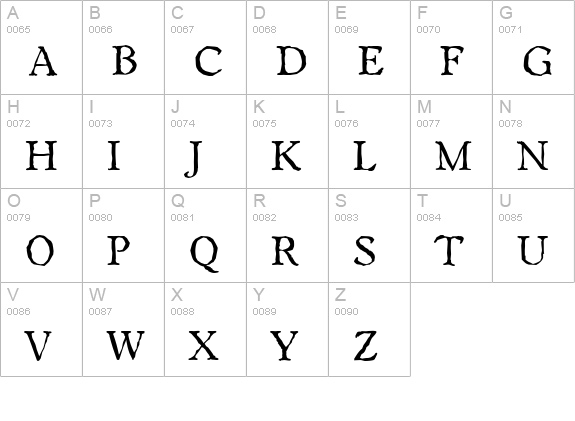
WorcesterAntique-Regular is the standard, neutral variant in the WorcesterAntique typeface family \xE2\x80\x94 well suited to general body text, paragraphs, and standard typographic work.
WorcesterAntique-Regular is a timeless and elegant font that exudes a classic charm perfect for a variety of design projects. With its vintage-inspired look and intricate details, this font captures the essence of antique typography in a modern context. The ornate serifs and delicate curves of WorcesterAntique-Regular add a touch of sophistication and refinement to any design. Best of all, WorcesterAntique-Regular is available for free download at FontsMarket.com, making it easily accessible for designers and creatives looking to add a touch of old-world flair to their projects. Whether you're working on invitations, branding, or editorial design, WorcesterAntique-Regular is a versatile font that will elevate your work with its distinctive style and character. Download this exquisite font today and bring a touch of antique elegance to your designs.